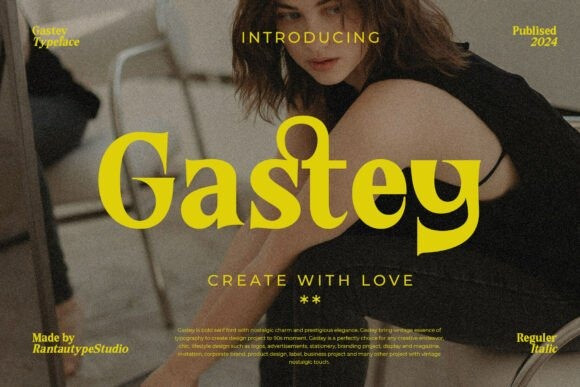
Gastey Font
Designer: RantauType
Gastey Font is a bold serif font with nostalgic charm and prestigious elegance. No matter the topic, this font will be an incredible asset to your fonts’ library, as it has the potential to elevate any creation.